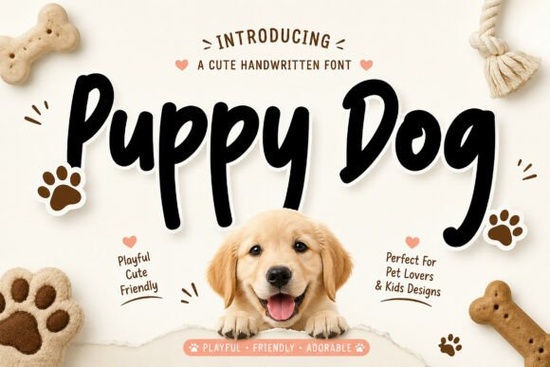
If you are working on a new logo for a dog walking service or designing stickers for a local pet shop, typography plays a huge role in setting the right mood. That is why many designers are turning to the Puppy Dog Font for its ability to combine readability with genuine warmth. This script typeface features smooth curves and bold strokes that feel casual yet professional. It works exceptionally well when you want to create a cheerful atmosphere without sacrificing legibility.
What Projects Suit This Handwritten Style Best?
Understanding where to apply this typeface ensures your final output looks intentional rather than haphazard. Because the letterforms are friendly and approachable, it creates an instant connection with the viewer. You will find it particularly useful in scenarios involving children or pets, where personality matters more than strict corporate formality.
Here are some specific applications where this font shines:
- Merchandise and Print-on-Demand: T-shirts, mugs, and tote bags often benefit from a handcrafted aesthetic. The bold strokes ensure the text remains clear even when printed on fabric.
- Digital Social Media Graphics: Instagram posts and stories stand out when they break away from standard sans-serif blocks. Adding this script adds a human touch to your brand.
- Stationery and Greeting Cards: Whether you are making birthday cards or wedding invitations, the soft edges convey emotion effectively.
- Logo Design: For local businesses like bakeries, nurseries, or pet care services, this style signals hospitality and friendliness.
Sometimes, you might want to pair this with other elements to create a cohesive layout. If you are looking for additional options that share a similar whimsical vibe, checking out the sweet script collection could provide great inspiration for your next package design.
How Does It Compare to Other Playful Scripts?
Choosing the right handwriting style depends heavily on the specific texture you want to achieve. While many script fonts lean towards formal elegance, some aim strictly for cuteness. There are times when you need something bolder or slightly different to avoid a cookie-cutter look. Comparing various styles helps refine your selection process before you commit to a download.
For instance, the majestic script variations offer a grander scale suitable for event banners, whereas this playful option fits smaller branding assets better. Similarly, if you need a signature look that feels personal rather than cartoonish, exploring resources like the elegant signature pack might serve your needs. Another interesting alternative is the charming belahgio set, which balances flowy movement with distinct characters. Reviewing these alongside your primary choice helps you avoid repetitive patterns across different campaigns.
The key difference lies in stroke weight and curvature. This particular font maintains a consistent baseline while allowing letters to connect naturally. This prevents the text from looking broken or disjointed when written across multiple lines. It is designed to maintain its shape even when resized, making it versatile for both large display headlines and smaller captions.
Designers often ask about kerning adjustments. Even with a pre-designed font, slight tweaks might be needed depending on the specific combination of letters. Tightening space between certain pairs ensures balanced word shapes. Paying attention to these micro-details elevates the overall polish of your project significantly.
Quick Tips for Maximizing Your Design Results
To get the most out of this typeface, follow these simple practices: